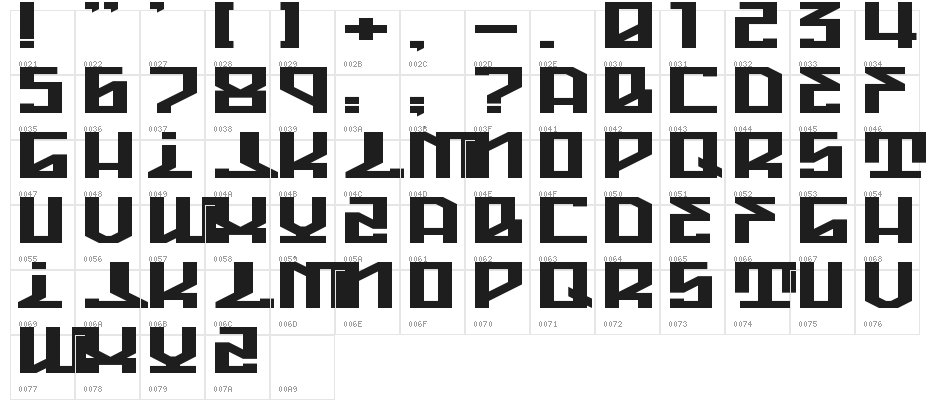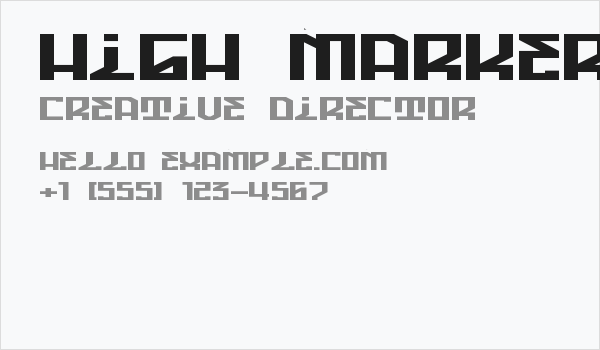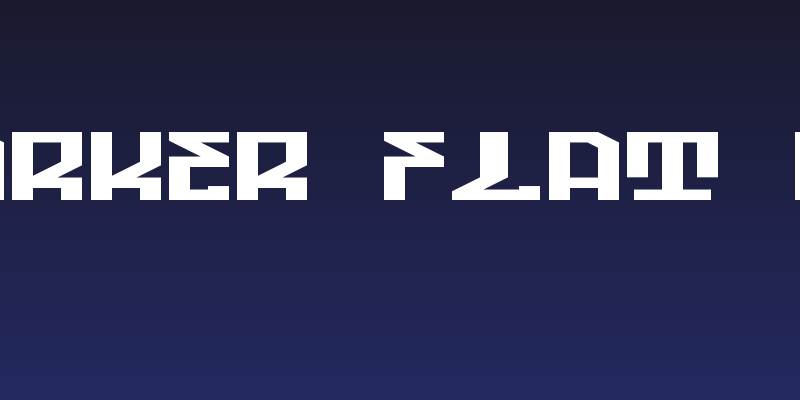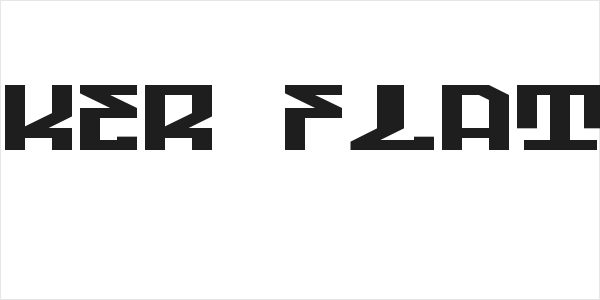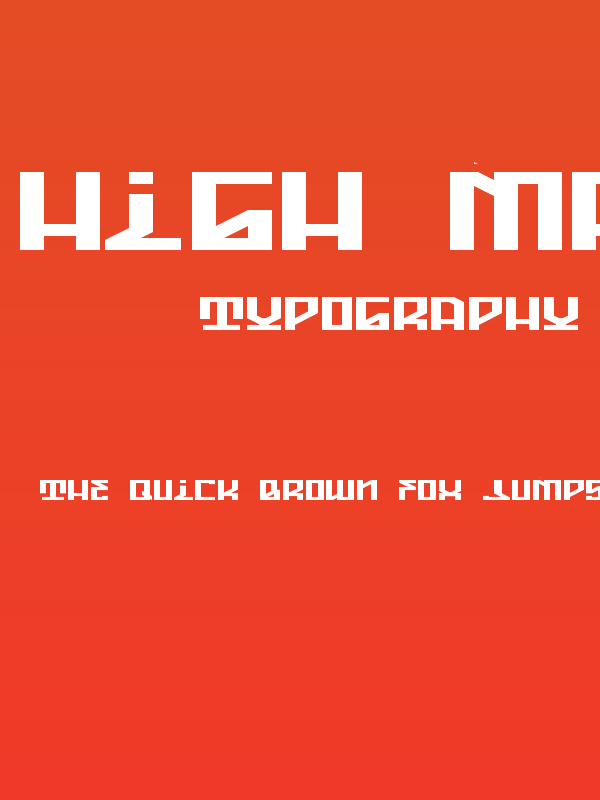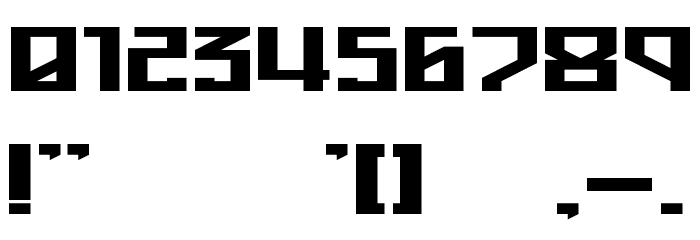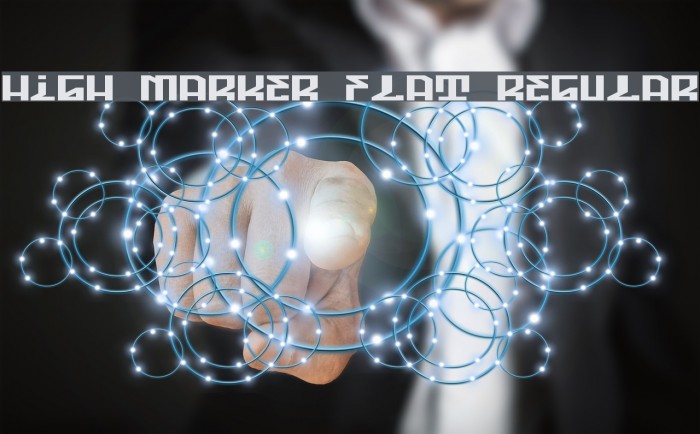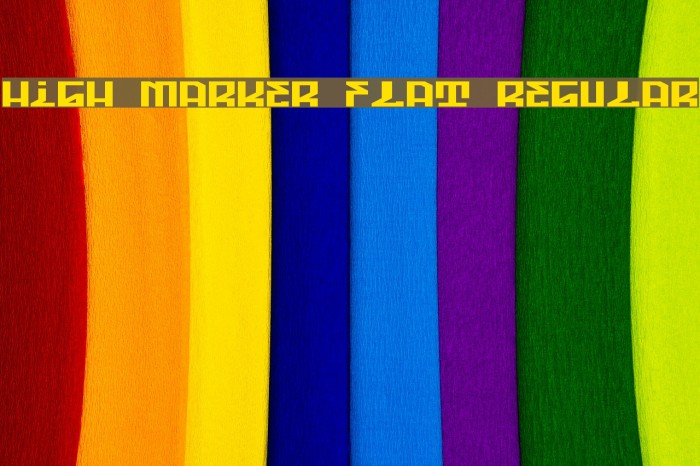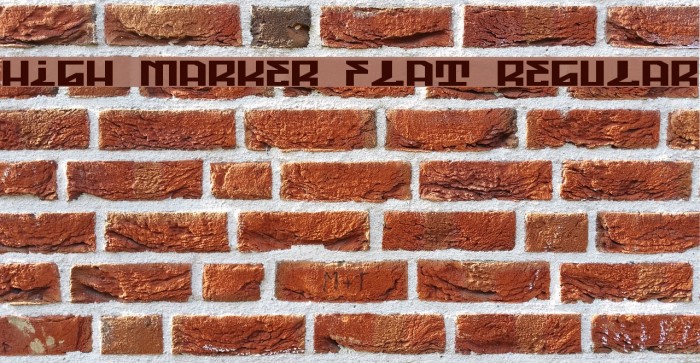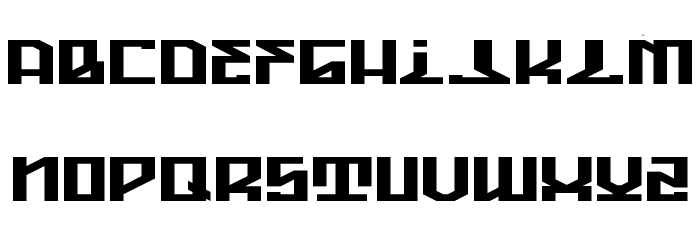
High Marker Flat Regular Font
High Marker Flat Regular Description
This font features a bold, geometric design with sharp angles and a futuristic aesthetic. The characters are constructed with straight lines and angular cuts, giving it a distinct, edgy appearance. The uppercase and lowercase letters maintain a consistent style, while the numerals and special characters complement the overall design. The font's unique style makes it stand out, ideal for projects that require a modern and bold statement.
| Proposed Projects | Ideal for sci-fi themed designs, video game graphics, posters, and branding that requires a modern, edgy feel. |